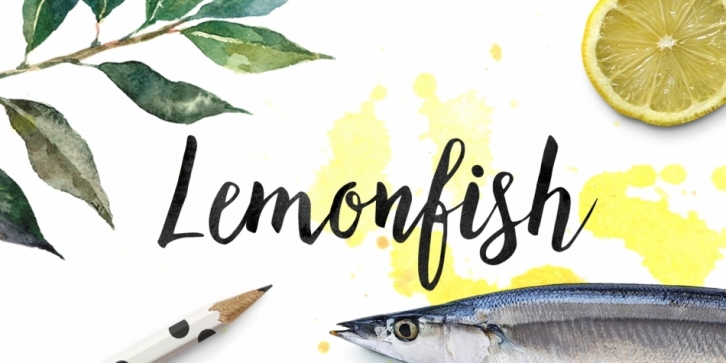
Designed by Sabina Aghova, Lemonfish is a script and modern calligraphy font published by Tabitazn.
I would like to introduce you Lemonfish – the cute informal hand lettered script.
Lemonfish will give your work an artistic handmade feel. It is great for various kinds of projects – wedding announcements, greeting cards, invitations, branding, logos etc. The font includes uppercase, lowercase and all basic English characters.